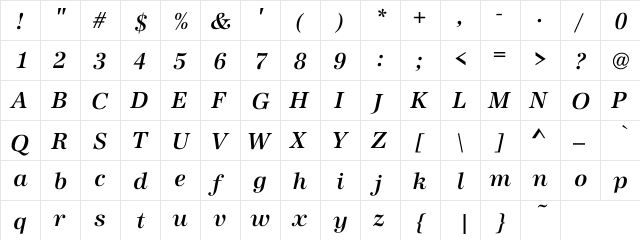
Burgundian Medium Italic Italic
Design Context for Burgundian Medium Italic Typeface
Burgundian Medium Italic offers clean, dependable letterforms without strong stylistic allegiance, making it a practical choice for designers who need flexibility. Its italic angle brings a sense of urgency and motion to the letterforms.
Pro Tip: Use Burgundian Medium Italic for emphasis, pull quotes, and subheadings where its slanted energy can add rhythm to the layout.